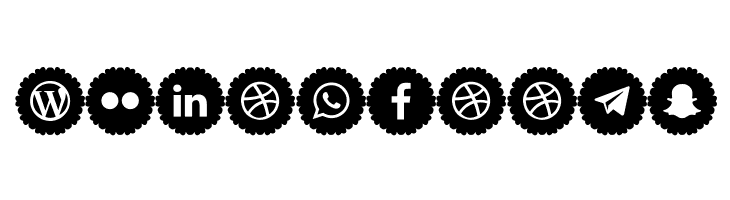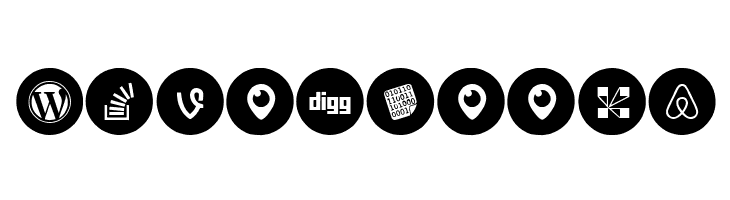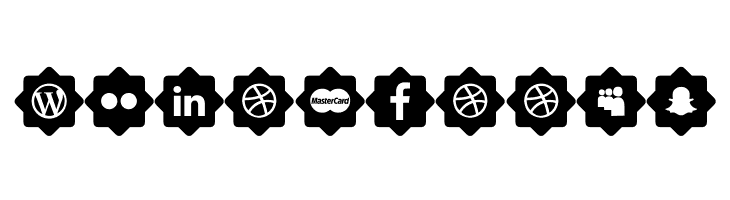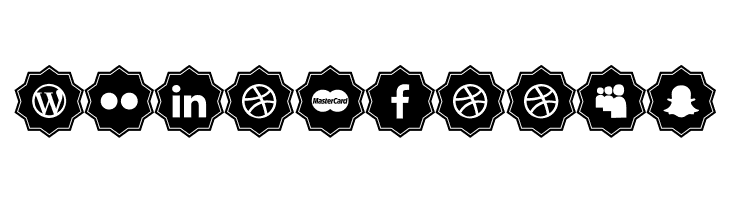
Bold, circular social media and tech icon set with high contrast.
Bold, gear-shaped icon set for brands and apps.
Bold, geometric sans-serif icons in starburst badges for digital platforms.
A playful, clip-constructed font with a geometric and industrial style.